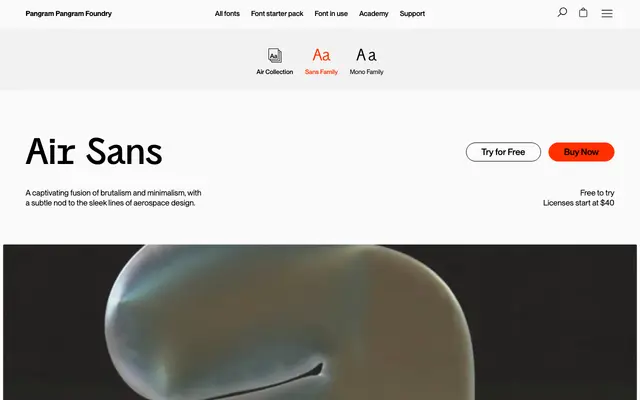
Air Sans
Pangram Foundry · Mat Desjardins, Caio Kondo
The proportional sans cut of Air by Mat Desjardins and Caio Kondo, paired with Air Mono.
The proportional sans cut of Air by Mat Desjardins and Caio Kondo of Inari Type. Eighteen styles run from Thin to Black with italics and a variable axis. Mono, Workhorse and Relaxed stylistic sets carry across to Air Mono, so a project can pair the two cuts cleanly through code, captions and headlines.